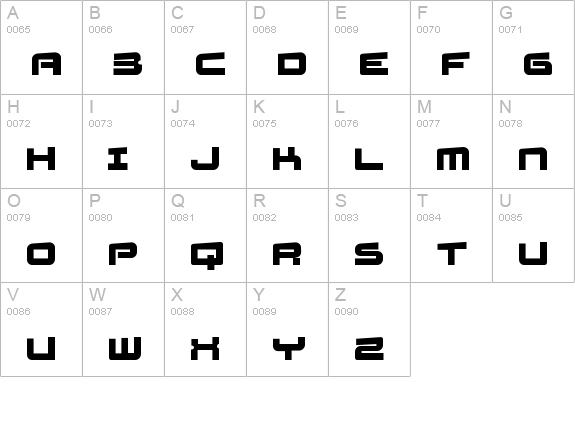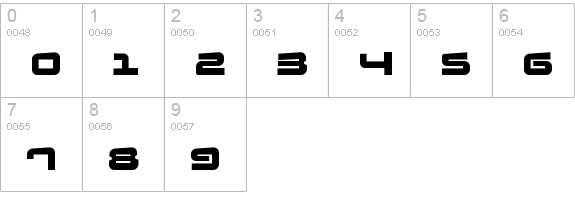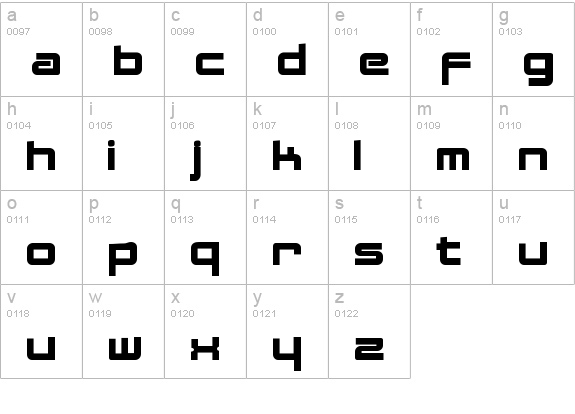
FatsansRotated Font Details
FatsansRotated font is a modern and unique typeface that brings a fresh and stylish look to any design project. Its sleek and edgy design features bold, angular letters that are perfect for making a statement. This font exudes confidence and sophistication, making it ideal for logos, branding, headlines, and more. The eye-catching rotation of the letters adds a dynamic touch to the overall appearance, making it stand out from the crowd. FatsansRotated font is versatile and can be used in a variety of design applications, from digital to print. Best of all, this amazing font is available for free download at FontsMarket.com. So go ahead and give your designs a modern and bold look with FatsansRotated font today!